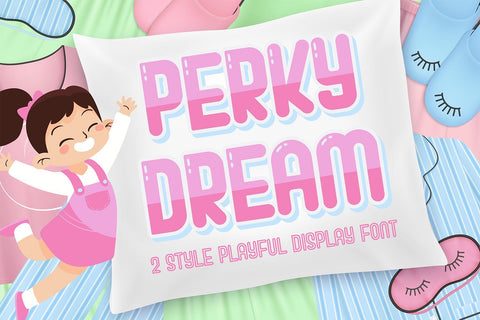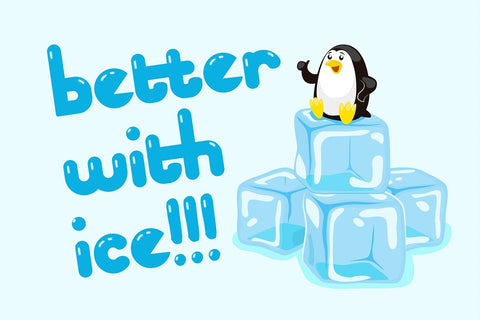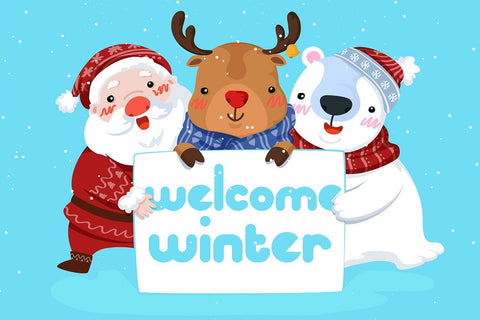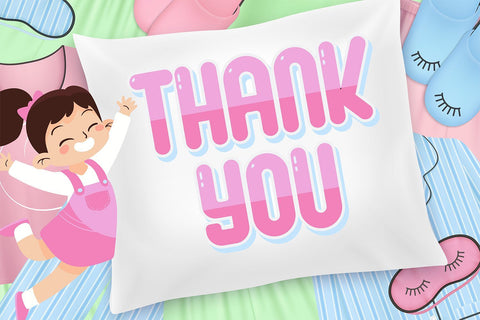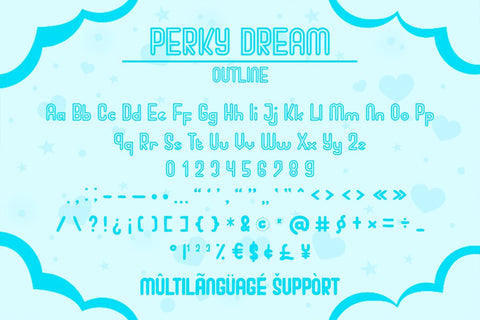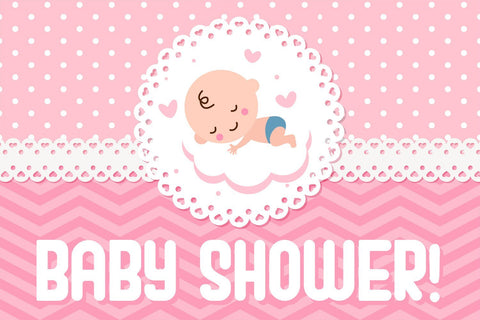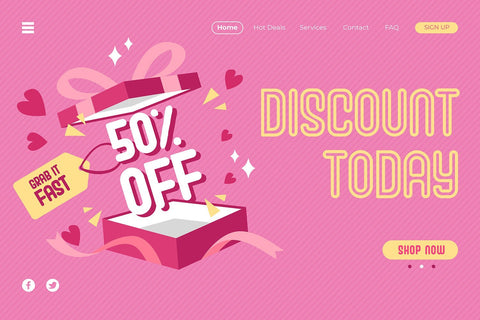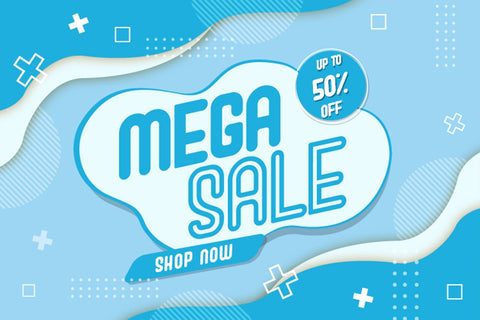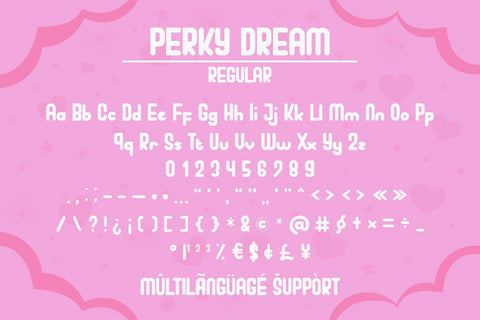
Perky Dream - Playful Display Font
Perky Dream is a stunning display font. This original look will appeal to a wide range of crafty ideas, from letterheads and titles, to stationery.
It is a perfect choice for crafters with cutting machines, as it is ultra smooth for optimal cutting performance.